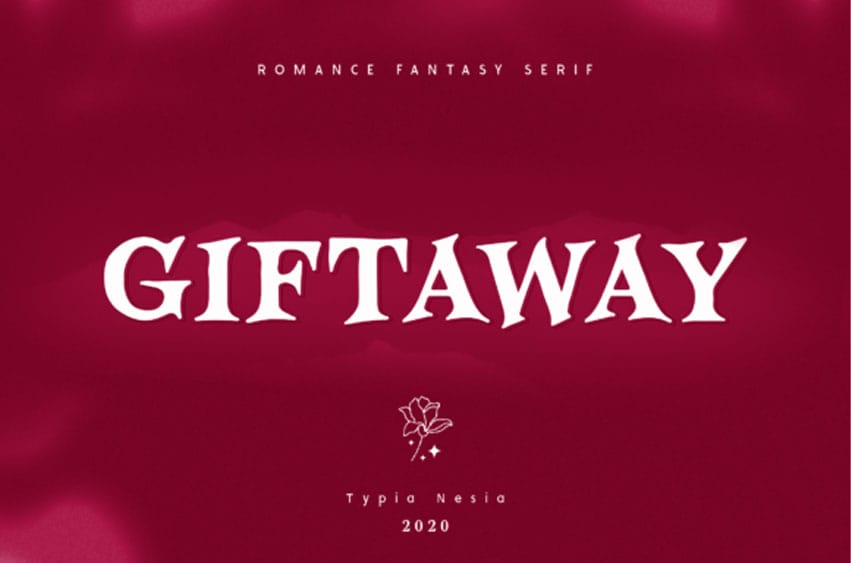
Giftaway Font
Giftaway Font is a bold and casual serif font.
It is perfect for your up coming projects such as luxury logo and branding, classy editorial design, magazine, fashion promotional, boutique branding, stationery design, blog design, modern advertising design, card invitation, art quote, home decor, book/cover title, special events and more.